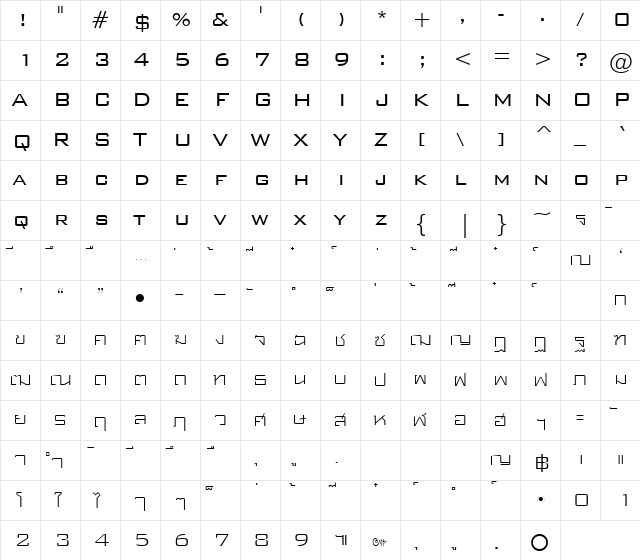
SP Armageddon Light Regular
Design Context for SP Armageddon Light Typeface
SP Armageddon Light takes a measured approach to typography — its balanced proportions and neutral character make it a reliable workhorse for both digital and print work. Its slender proportions lend an understated elegance to any composition.